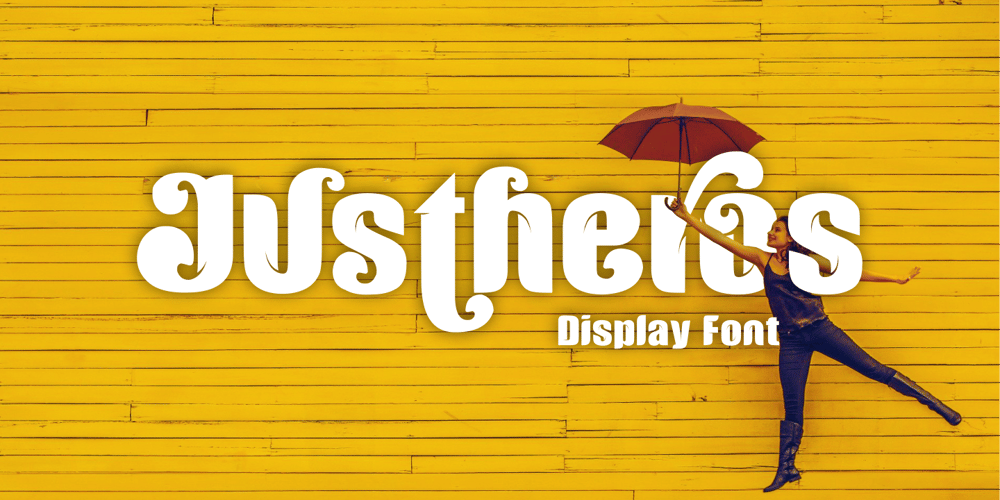
Justheros Font Family was designed by Ahmad Zulfikar Ali and published by ZetDesign. Justheros contains 2 styles and family package options. Justheros font is a very amazing bold font.This font is created by combining sharp anglesand curves to produce a spectacular shape.This font can be used formally and informally, and is equipped with opentype features andinternational accents to support your best design work…. thanks …